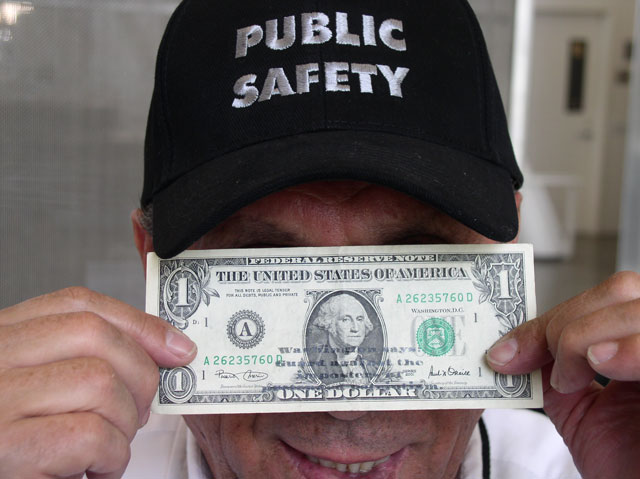
|  | Piper Murakami - messages on One Dollar Bills
"Washington says: Guard against the impostures of pretended patriotism. "
"Washington says: Occupants of public offices love power and are prone to abuse it."
I collect money with messages hand written or stamped on them. Sometimes there are arty scribbles on money (was the previous "owner" inspired or bored?). My favorite piece in the small collection says "fake money" and is signed by Duane Michaels, the photographer.
So, here I am in the Underware Workshop getting an opportunity to do my thing on money. But, what message? Some of my thoughts and ideas:
The federal deficit (it goes up 1.68 billion dollars a day)
Don't vote for Bush (your vote has an impact on people globally)
Some wise quote about money ("When money speaks, the truth keeps silent")
Consumerism (not a sustainable endeavor)
Giving money to the poor (reality: it doesn't solve the bigger problem)
I settled on George Washington (1732-1799) after a discussion with one of the many participants in the workshop. I googled Washington and found plenty of great quotes. Many of them were too long to use as a money message: "I have always considered marriage as the most interesting event of one's life, the foundation of happiness or misery" or "The government of the United States is not, in any case, founded on the Christian religion."
The name of my font I created in the workshop is called George. It is based on the lower case of the caps on the dollar bill. After spending one whole day's worth of time happily sketching ideas for the font I realized that there was no way in heck that I could create all of the lower cases in a day. Out of desperation, I took the cheating option (it was better than dropping out). I found the font on the Web; traced my 18 letters I needed in Illustrator; tweaked, kerned, and created the font in FontLab and bingo. The self-ink stamper took half an hour to produce and cost $50 bucks, each. Yikes. At least I know I can get 50,000 impressions with one stamper.
So in spite of it all, I had a blast working on this project. It was worth all of the late nights. And I got an opportunity to say something. | |